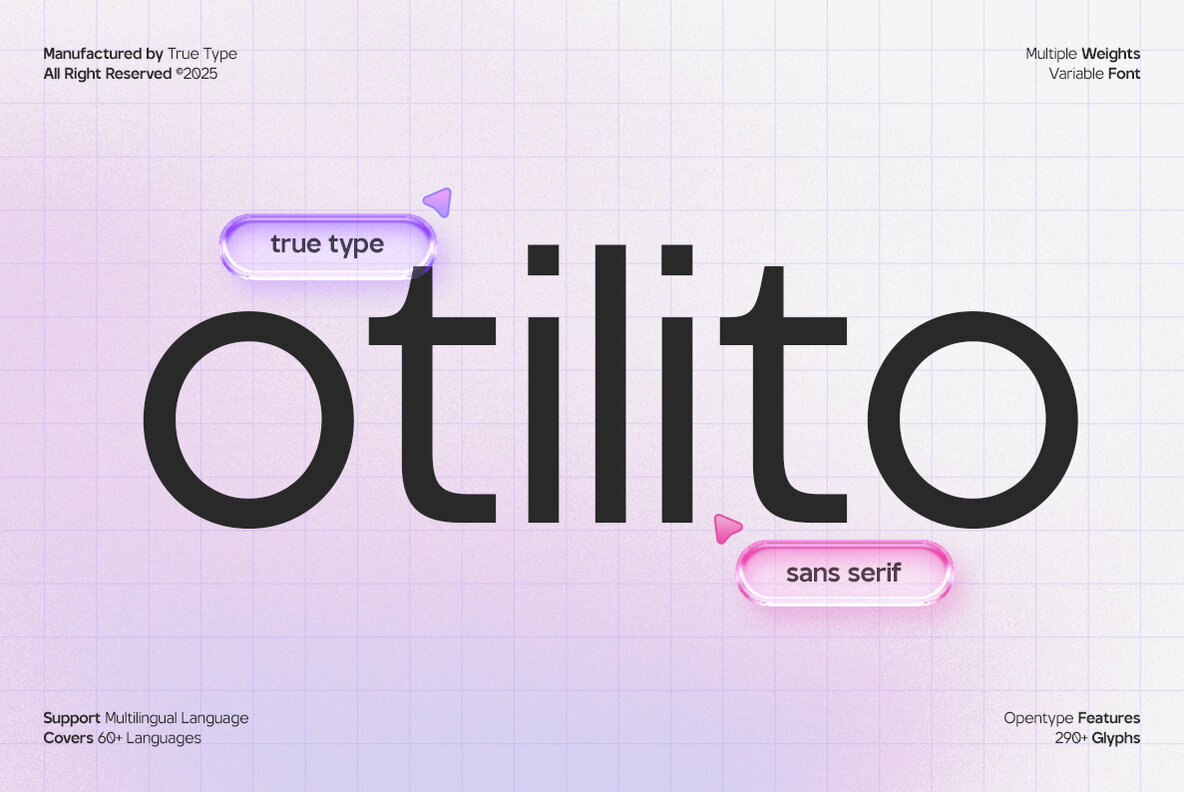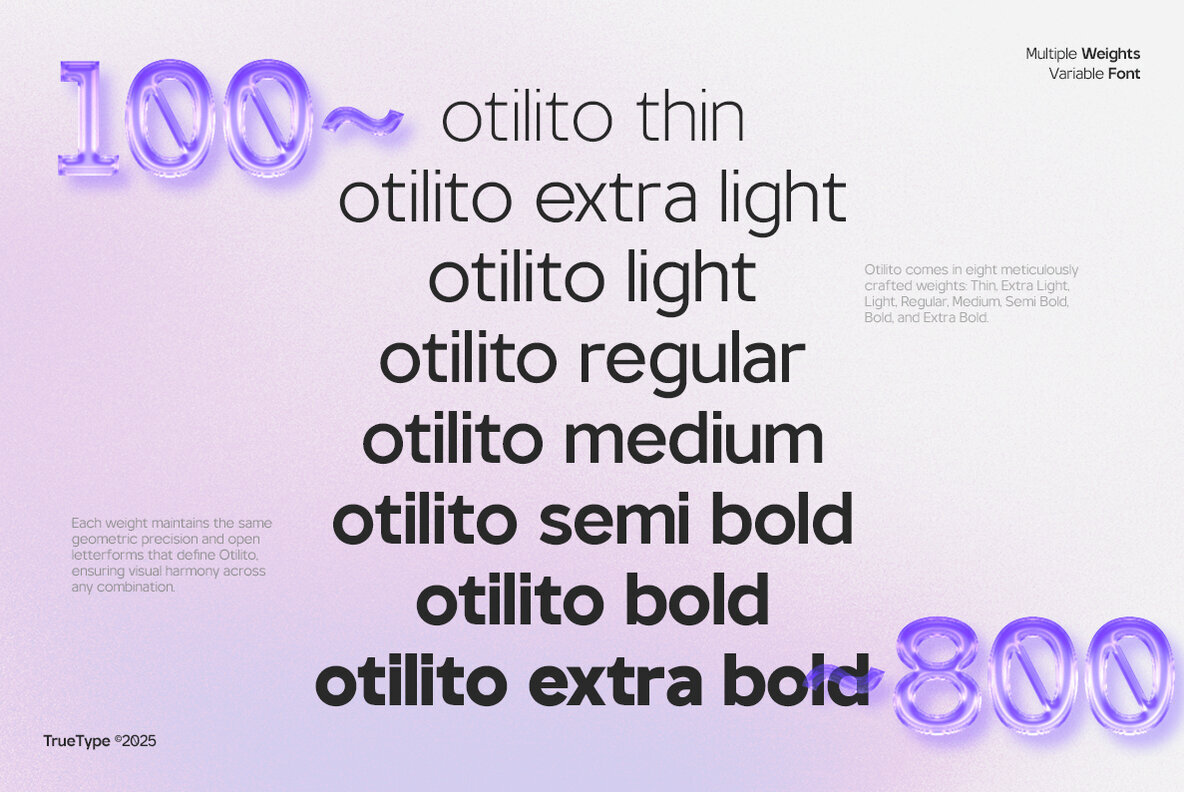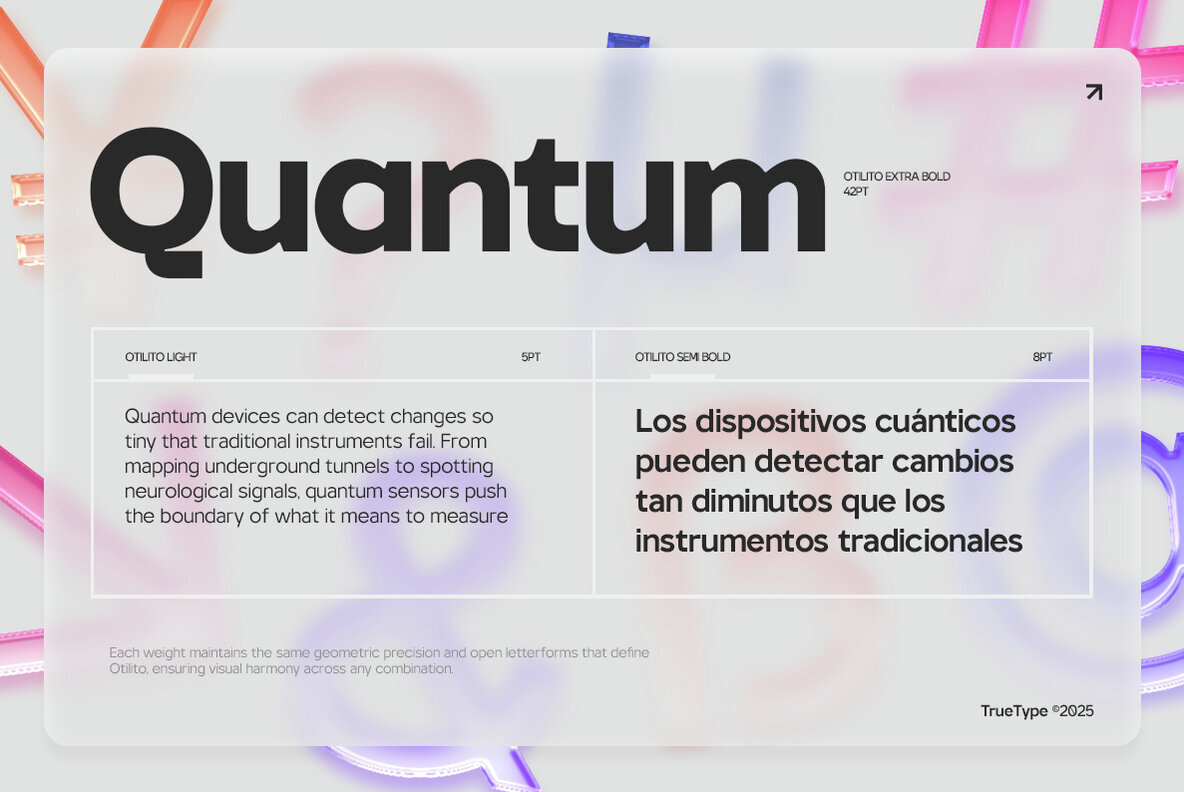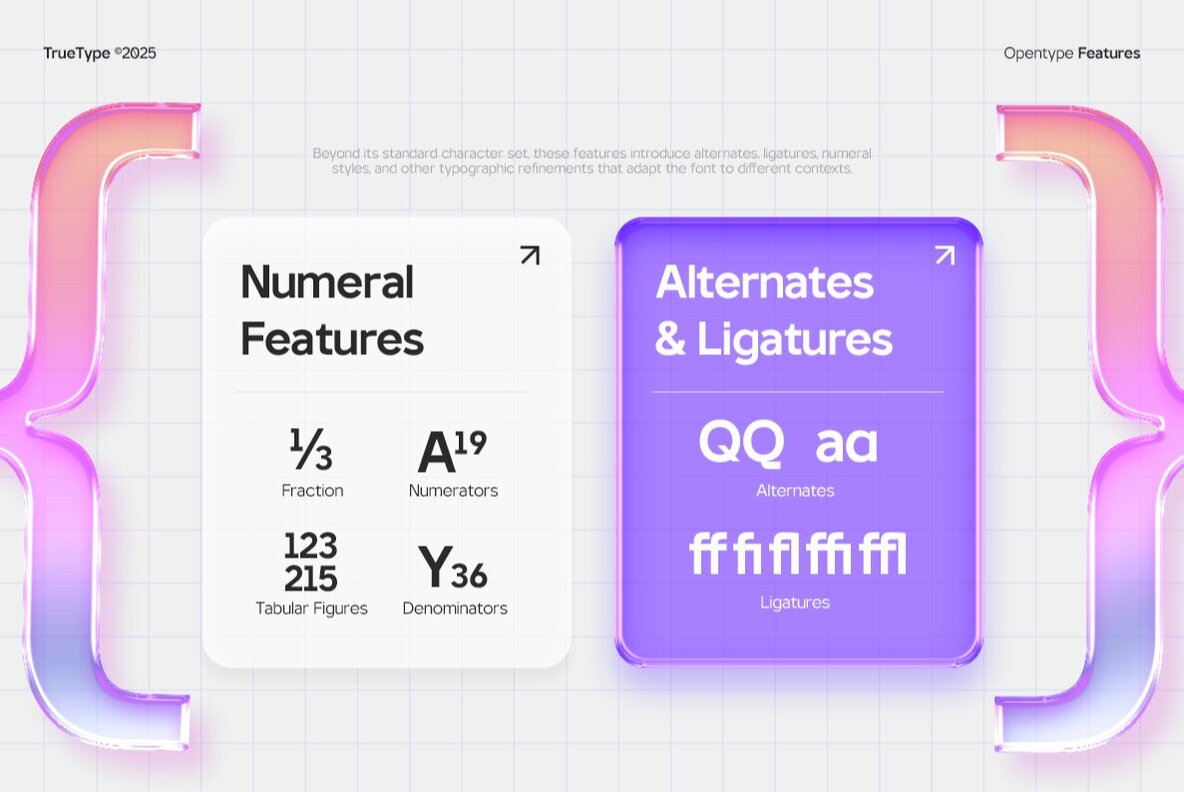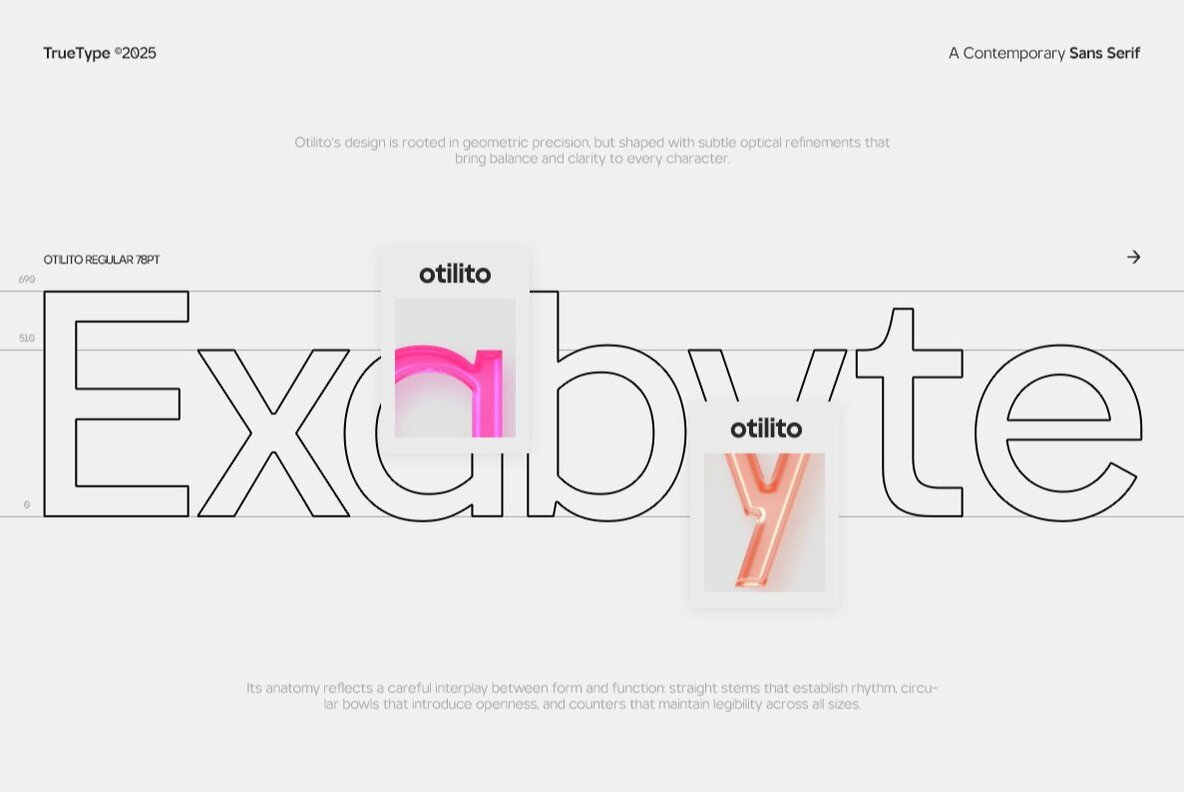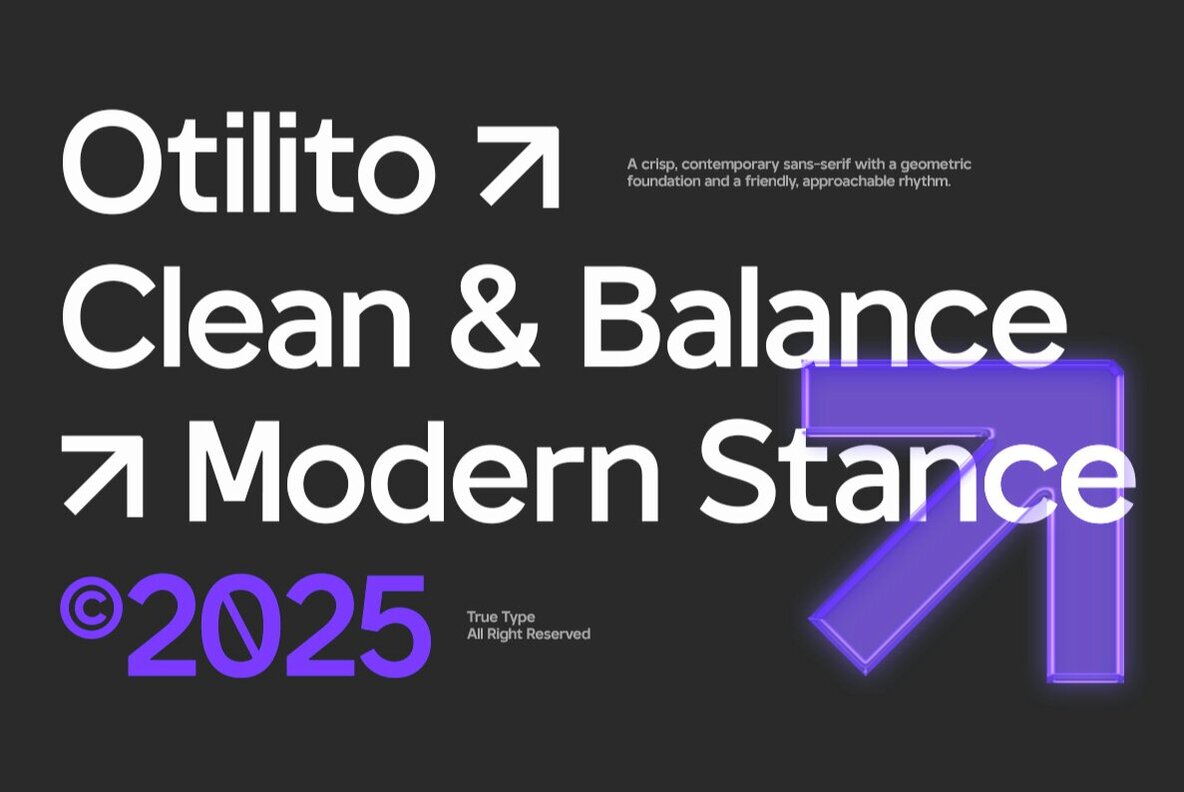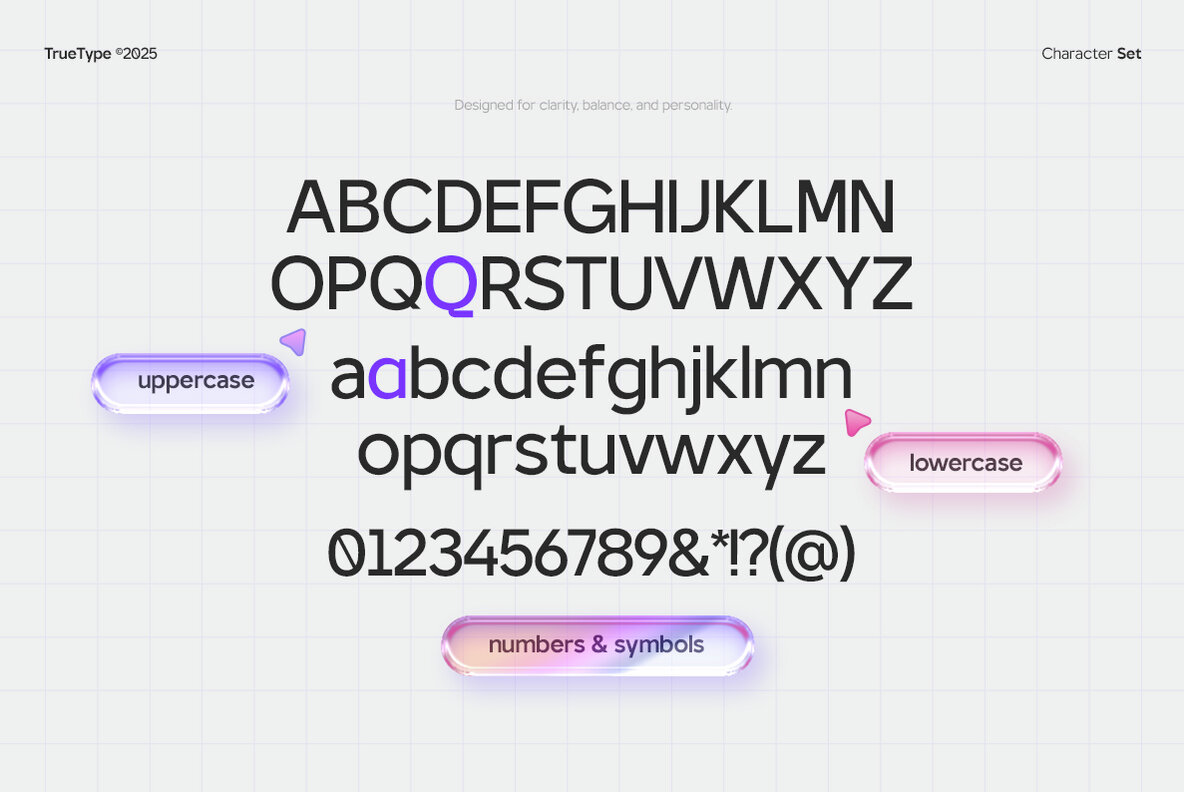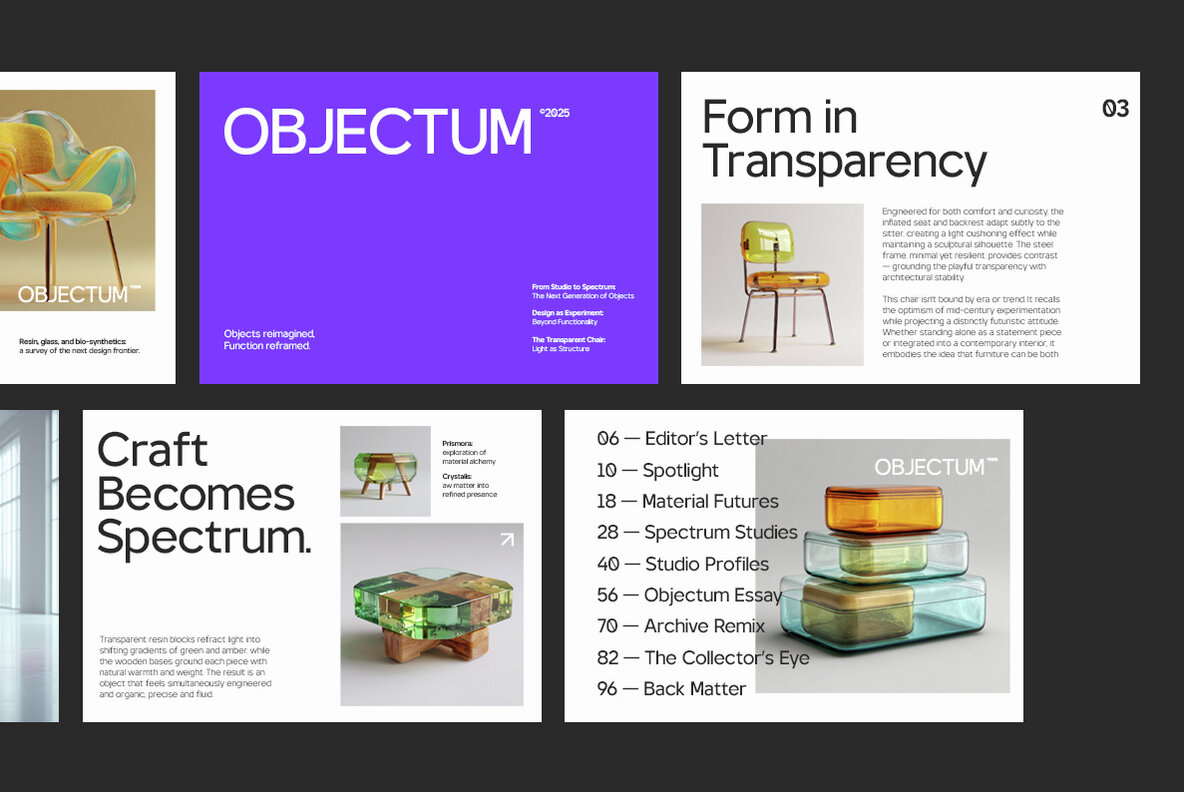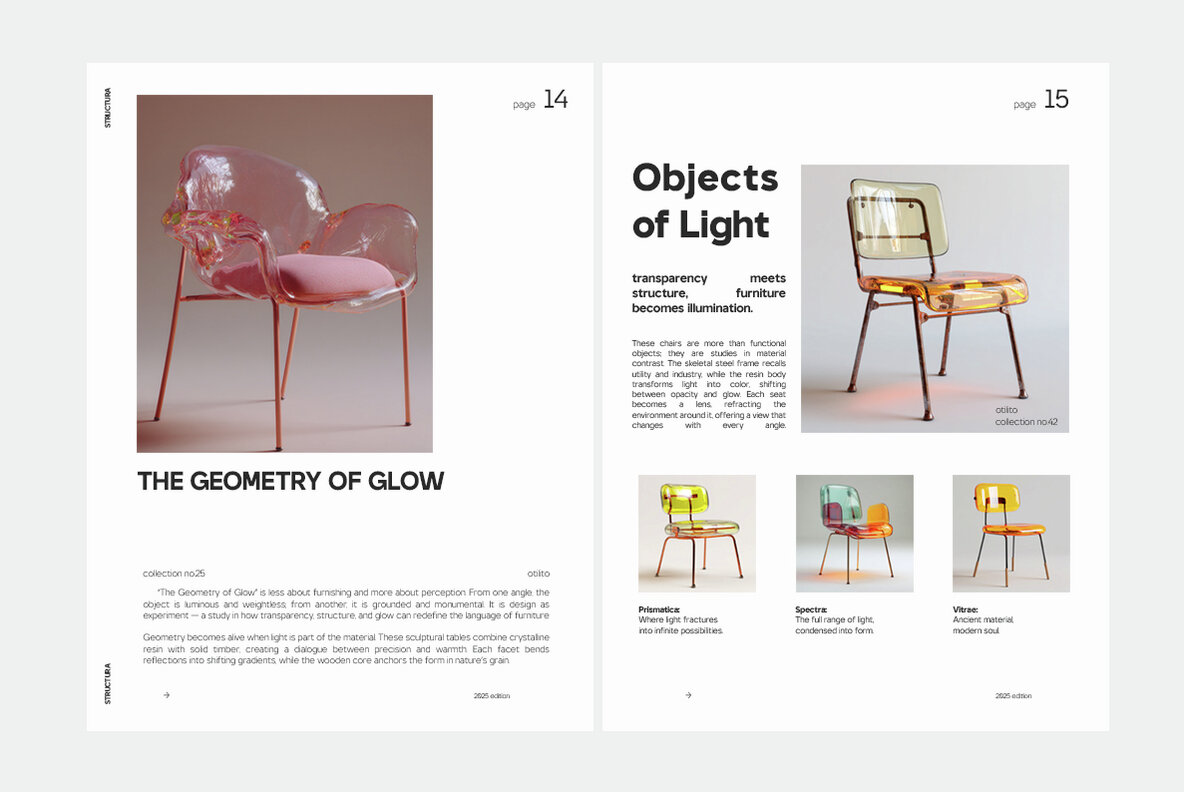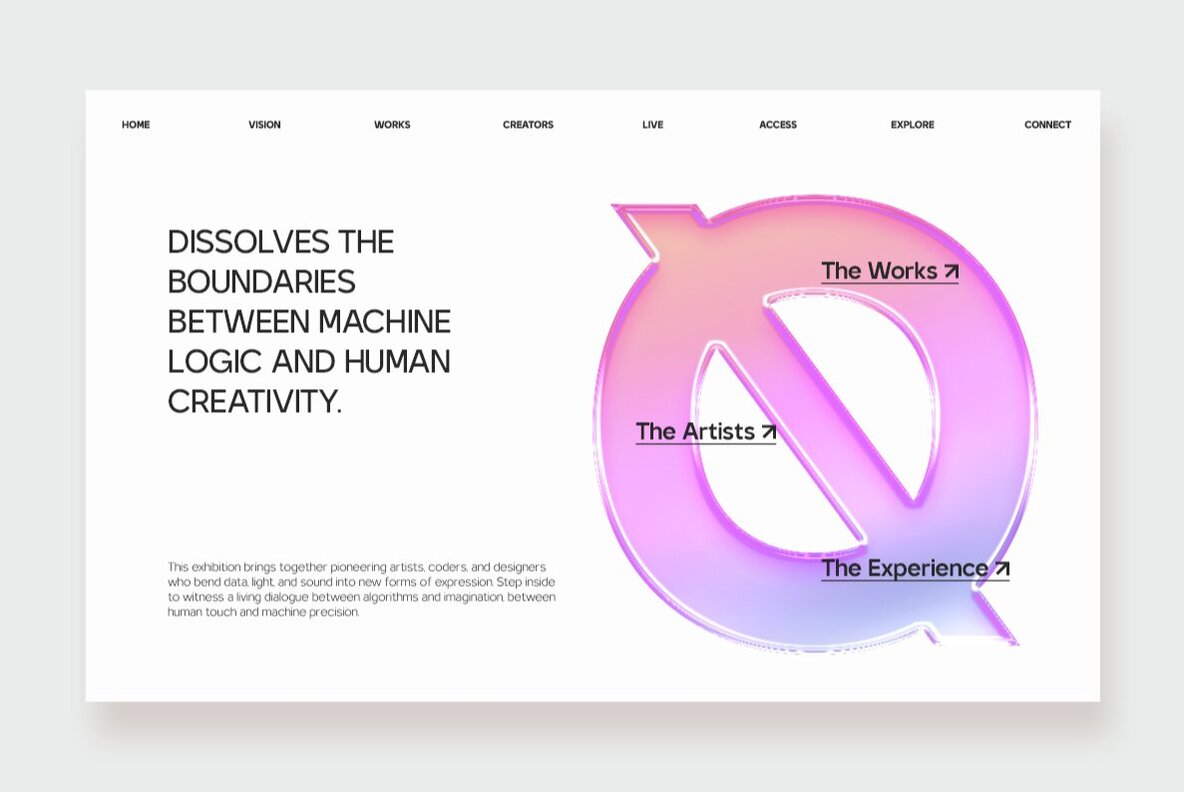
TRT Otilito Font
TRT Otilito is a modern sans serif typeface renowned for its semi-grotesque characteristics and distinctive personality. This font expertly blends geometric balance with subtle quirks, offering a unique charm that enhances its flexibility. With a clean and functional design, TRT Otilito is both practical and stylish, making it a valuable asset for any project. TRT Otilito stands out as a highly versatile font family, featuring multiple weights and styles tailored to meet diverse design requirements. Its adaptability makes it an excellent choice for various applications including branding, editorial work, digital interfaces, and packaging. Whether for visual identities, headlines, or logos, this typeface provides clarity without losing its captivating character.TRT Otilito: Modern Sans Serif with Semi-Grotesque Charm